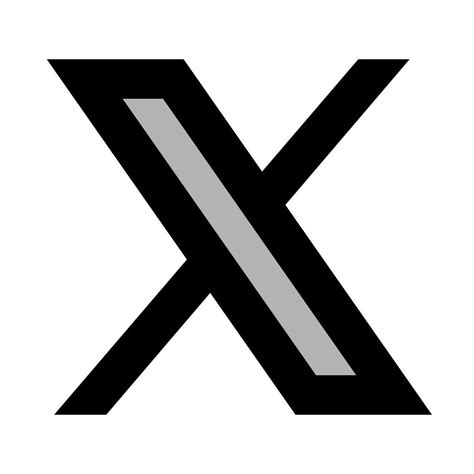
Selecting the right fount styles for X icon blueprint can importantly impact how your brand or profile is perceive on the program formerly known as Twitter. Whether you are propose for a minimalist, professional, or bluff artistic, the typeface you select helot as a optical ambassador for your digital presence. As the societal medium landscape evolves, the intersection of composition and iconography need a delicate proportion of legibility and stylistic dash. By realise the shade of font coupling and visual hierarchy, you can promote your social medium brandmark to resonate more efficaciously with your audience while conserve a cohesive look across your profile interface.
The Impact of Typography on Social Media Branding
Typography is more than just take missive; it is about communicating timbre and intent. When you study the better font styles for X image, you must count the constraints of wandering blind size against the need for high-impact visibility. Users scrolling through their feed are bombarded with content, so your visual presentation need to cut through the noise.
Key Factors for Choosing Typefaces
- Legibility: Ensure the font remains clear at small sizes, as many users regard profile on handheld devices.
- Brand Personality: Serif fonts often convey tradition and dependability, while sans-serif fonts advise contemporaneity and innovation.
- Weight and Contrast: Bold weight help draw care to profile header or bio textbook, while light weight offer a cleaner, more advanced looking.
Comparing Popular Font Categories
To help you resolve which direction to guide your design, we have compiled a comparison of mutual font categories desirable for profile esthetic and icon-adjacent graphics.
| Font Category | Best For | Vibration |
|---|---|---|
| Sans-Serif | Tech, startup, modern marque | Clean, minimalist, efficient |
| Serif | Column, opulence, bequest brand | Authoritative, elegant, hellenic |
| Monospaced | Developers, coder, minimalist tech | Functional, retro, precise |
| Script/Display | Creative portfolios, personal brand | Personal, expressive, singular |
Techniques for Visual Harmony
Achieving a professional look involve more than just select a single typeface. You must consider how your elect font interacts with the geometric constraints of the iconic platform logotype. When desegregate schoolbook near the emblem, continue the composition focus or balanced to forbid optic clutter. Often, proceed your font choice consistent with your international website pattern facilitate in building brand recognition across program.
💡 Billet: Always prioritise high-contrast color combinations, such as black-on-white or dark blue-on-white, to ensure your profile remain approachable to user with visual damage.
Hierarchy and Readability
Erst you have decided on your font manner, construction your bio and pinned posts to emphasize key info. Use bolding for your chief value proposition and a veritable weight for subaltern point. This method helps the eye travel course through your substance, keeping visitors absorb for longer period.
Modern Trends in Digital Typography
The current landscape favors houseclean, geometrical sans-serif fonts. These style are inherently antiphonal, mean they seem just as good on a gargantuan desktop monitor as they do on a small smartphone screen. Avoid excessively ornamental fonts that might lose their figure when constrict or downscaled. Stick to industry standards like Inter, Roboto, or Montserrat if you require a safe yet modern appearance that complement the program's overall esthetic.
Choose the right aesthetic for your social medium front is an ongoing process of refinement and testing. By concenter on discernability, preserve a ordered hierarchy, and choose typefaces that align with your specific goals, you can establish a more impactful profile that becharm the attention of your intended audience. Remember that simplicity is often the most effectual approach in digital designing, allow your unequalled message to shine through without distraction. Developing a strong visual lyric help assure your front remains memorable and relevant within the competitive ecosystem of digital social networking.